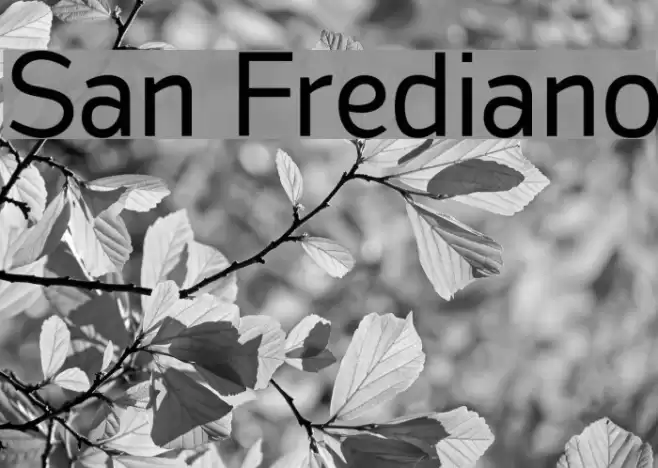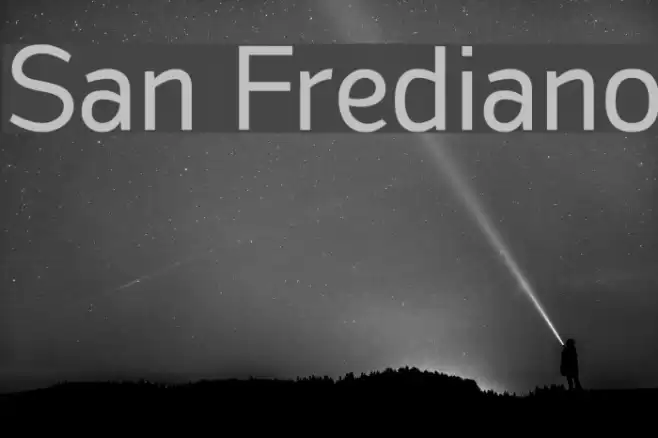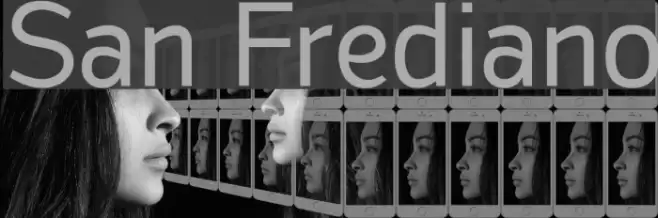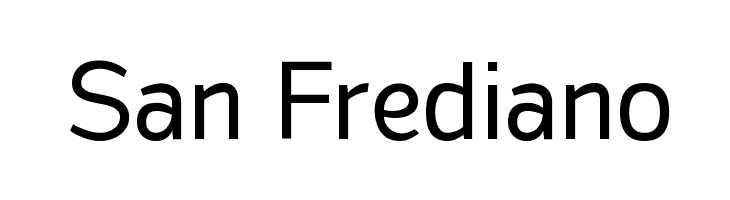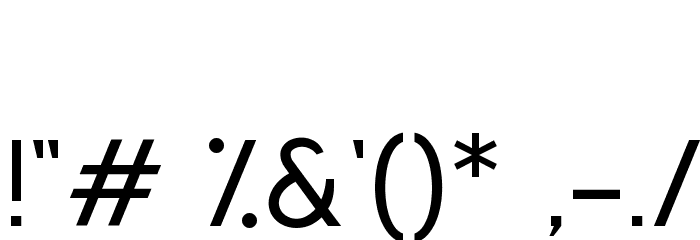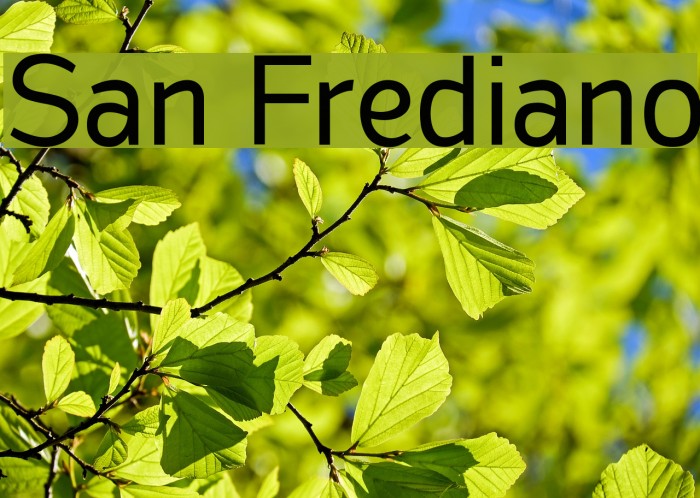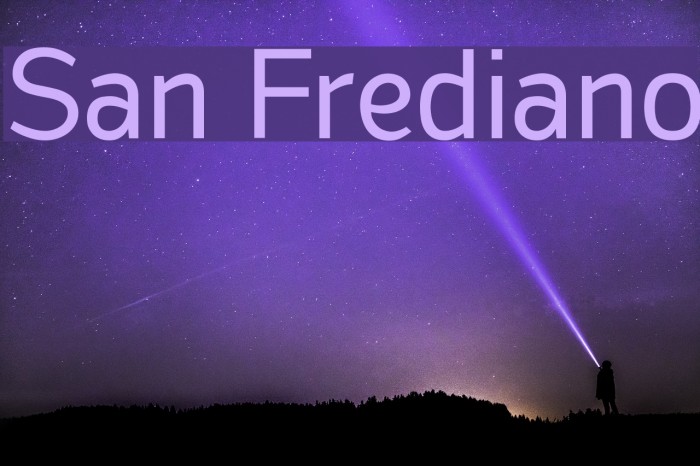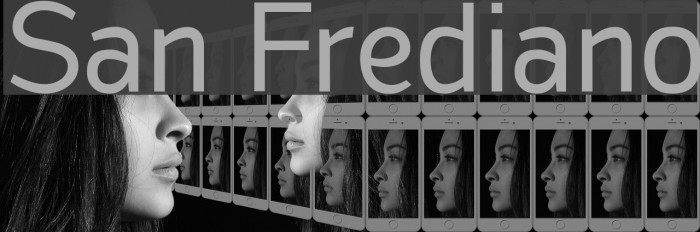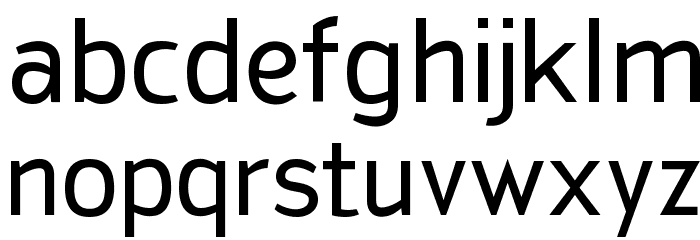
San Frediano Font
San Frediano Description
This font features a clean and modern sans-serif style with a geometric structure. The characters are well-balanced, offering a harmonious appearance that is both professional and approachable. The uppercase letters are bold and assertive, while the lowercase letters maintain a friendly and inviting look. The numerals are clear and easy to read, making them suitable for various applications. The special characters are designed with simplicity in mind, ensuring they integrate seamlessly with the rest of the typeface. Overall, this font exudes a contemporary vibe, making it versatile for numerous design projects.
A modern, geometric sans-serif font with a clean and professional look from Uncategorized fonts.